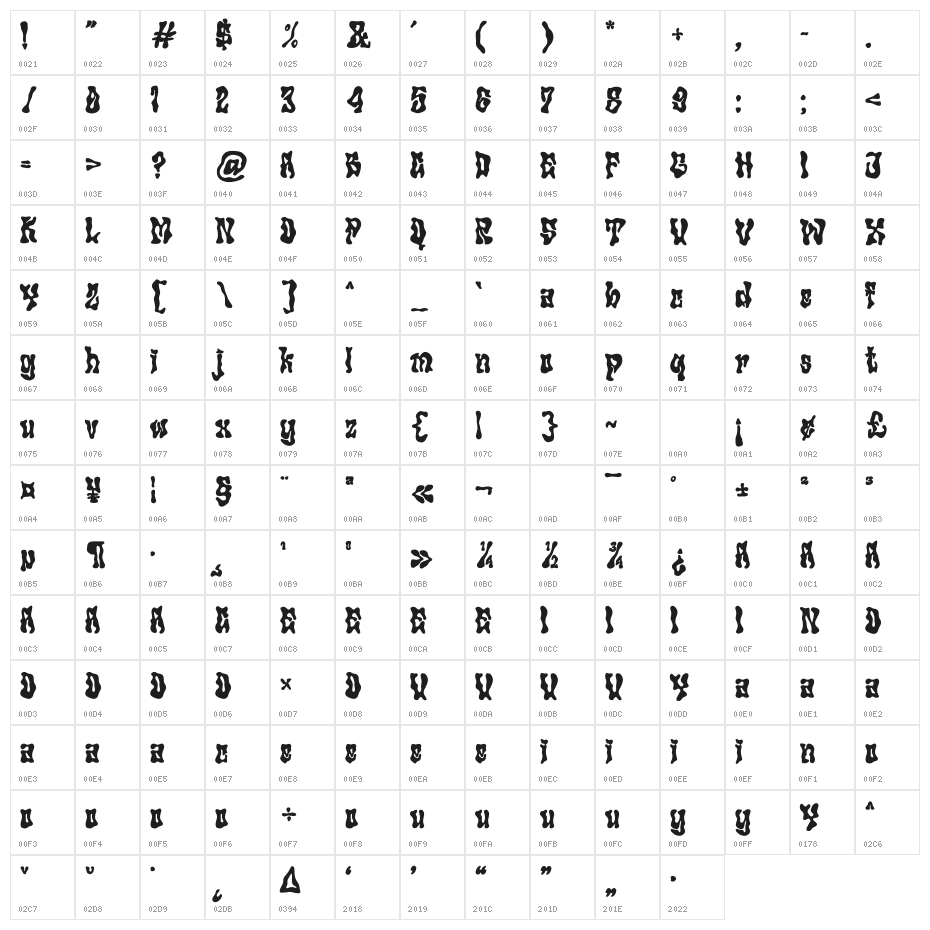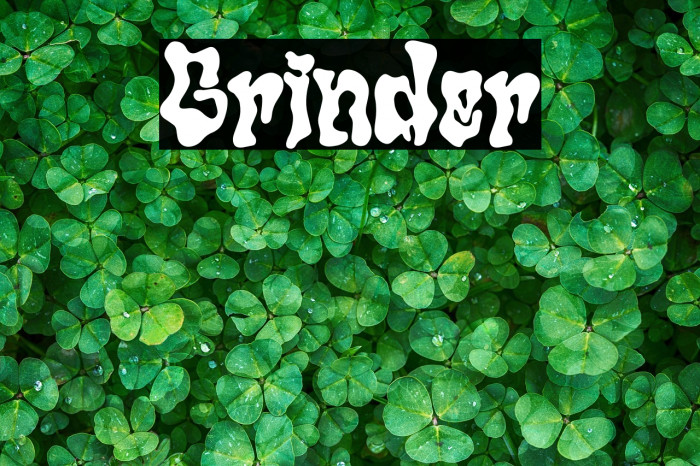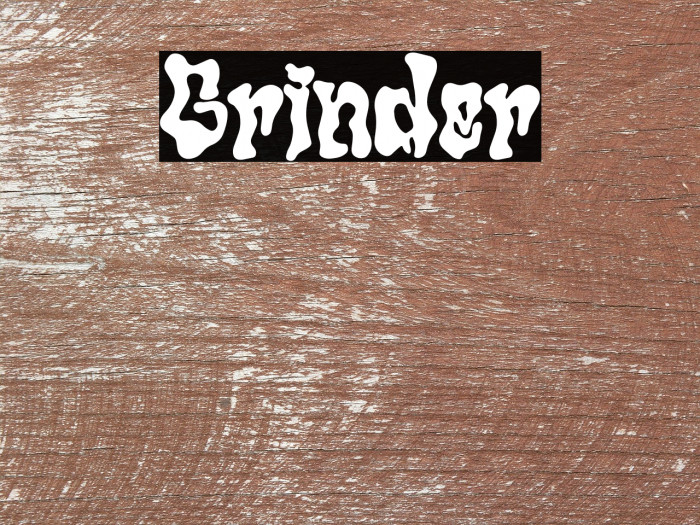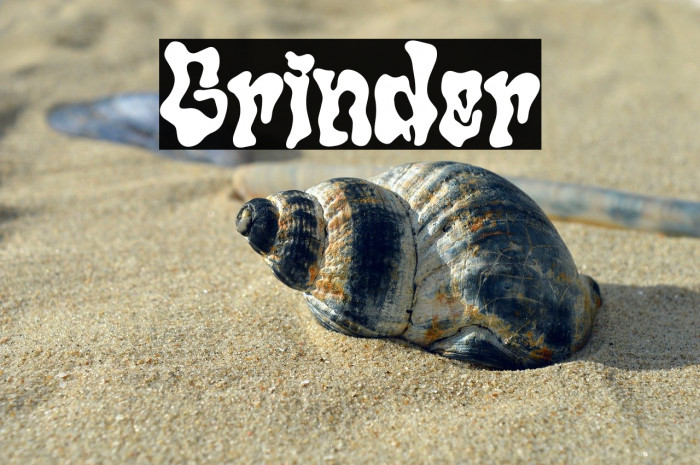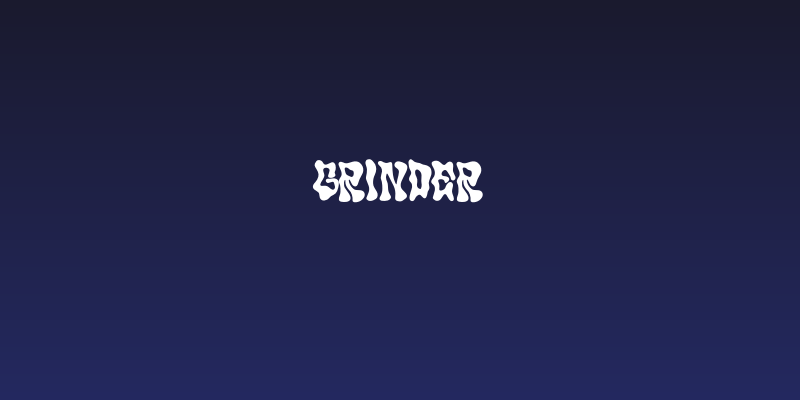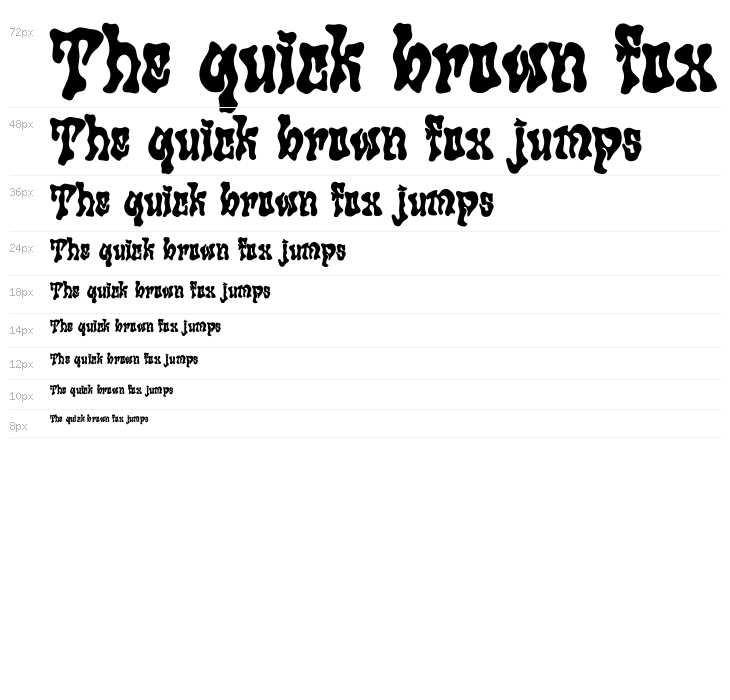
Grinder Font
Grinder Description
This font features a bold and highly decorative style with a unique, organic appearance. The characters are designed with irregular, fluid shapes that give them a dynamic and somewhat chaotic look. The thick strokes and uneven edges create a sense of movement and energy, making it stand out as a distinctive display font. The uppercase and lowercase letters maintain a consistent style, while the numbers and special characters complement the overall design. This font's artistic flair makes it suitable for creative and unconventional projects.
| Proposed Projects | Ideal for posters, album covers, artistic branding, and creative event invitations. |